hello, could someone help me find a font equal or similar to this one? with these vertical risks? Thanks
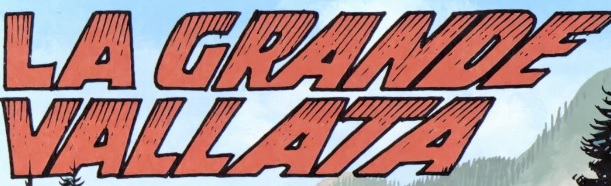
That looks hand drawn. Note the five A’s are not identical; neither are the three L’s.